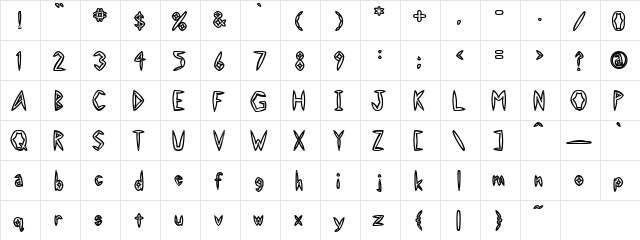
Rangoli Regular
Design Context for Rangoli Typeface
Rangoli is a composed and adaptable typeface that performs quietly and consistently across a wide range of design contexts.